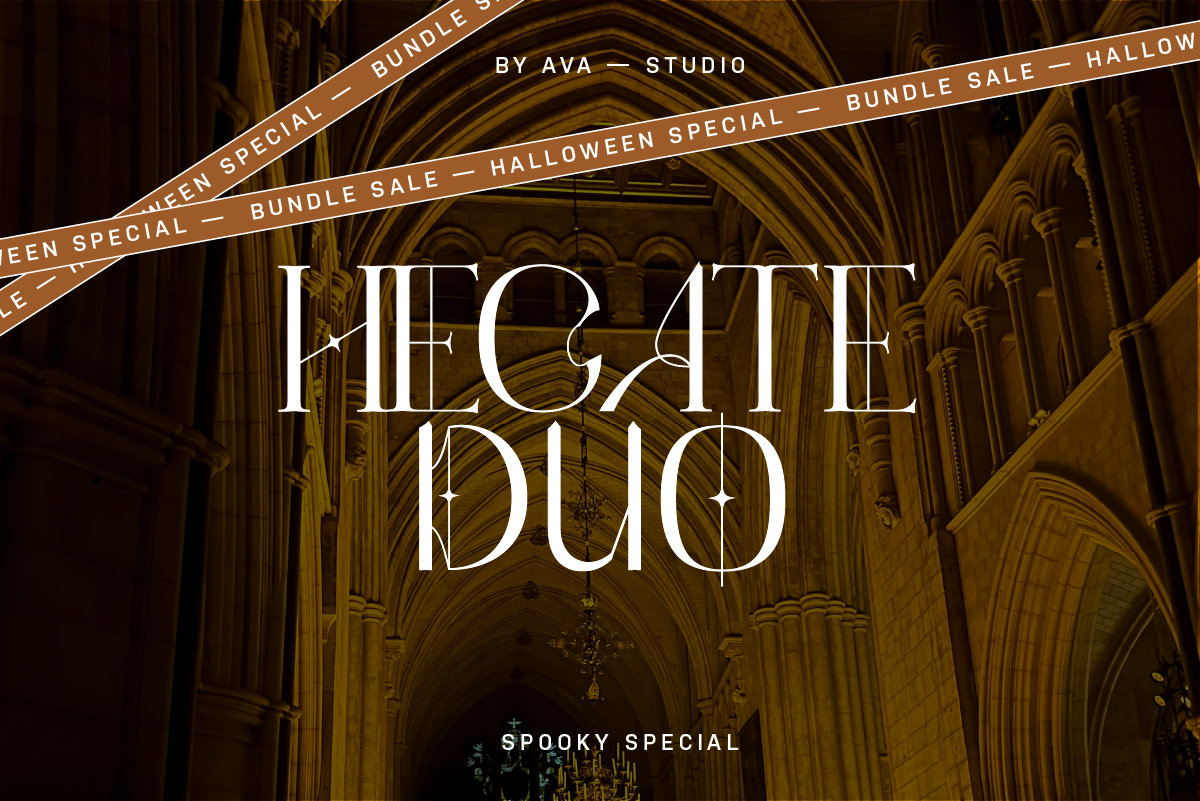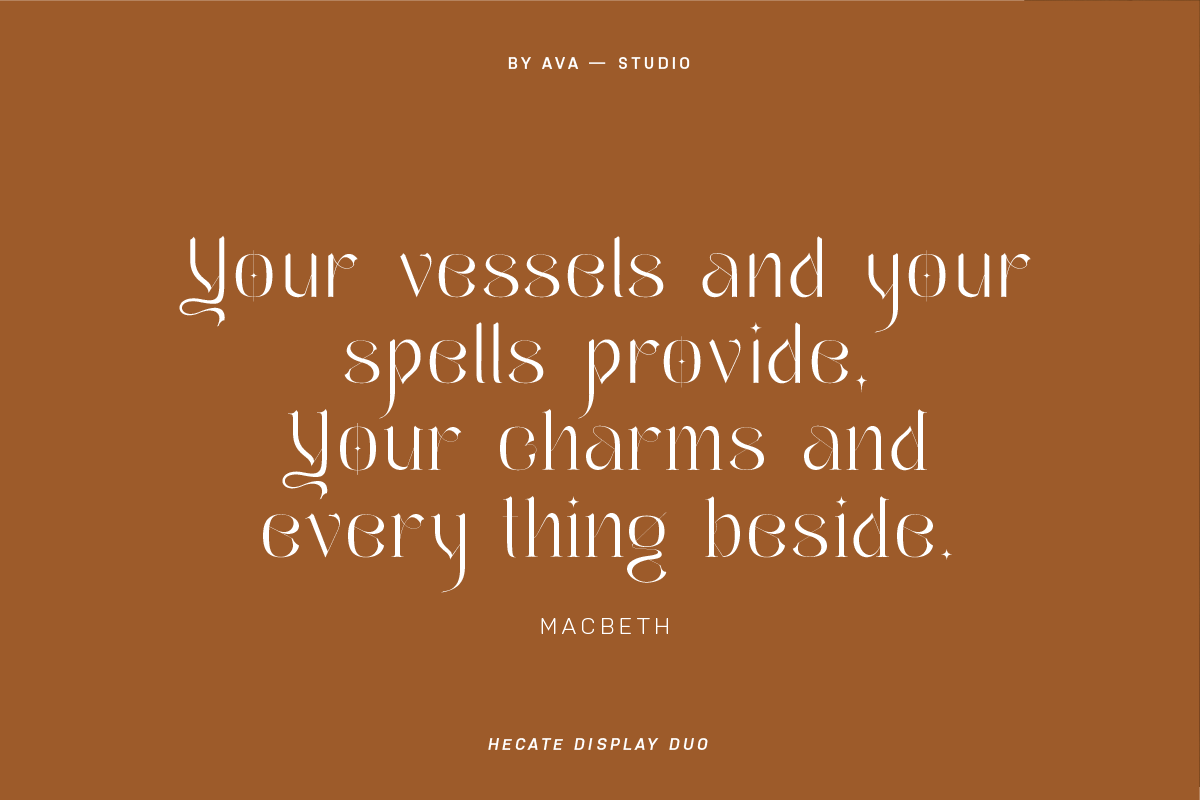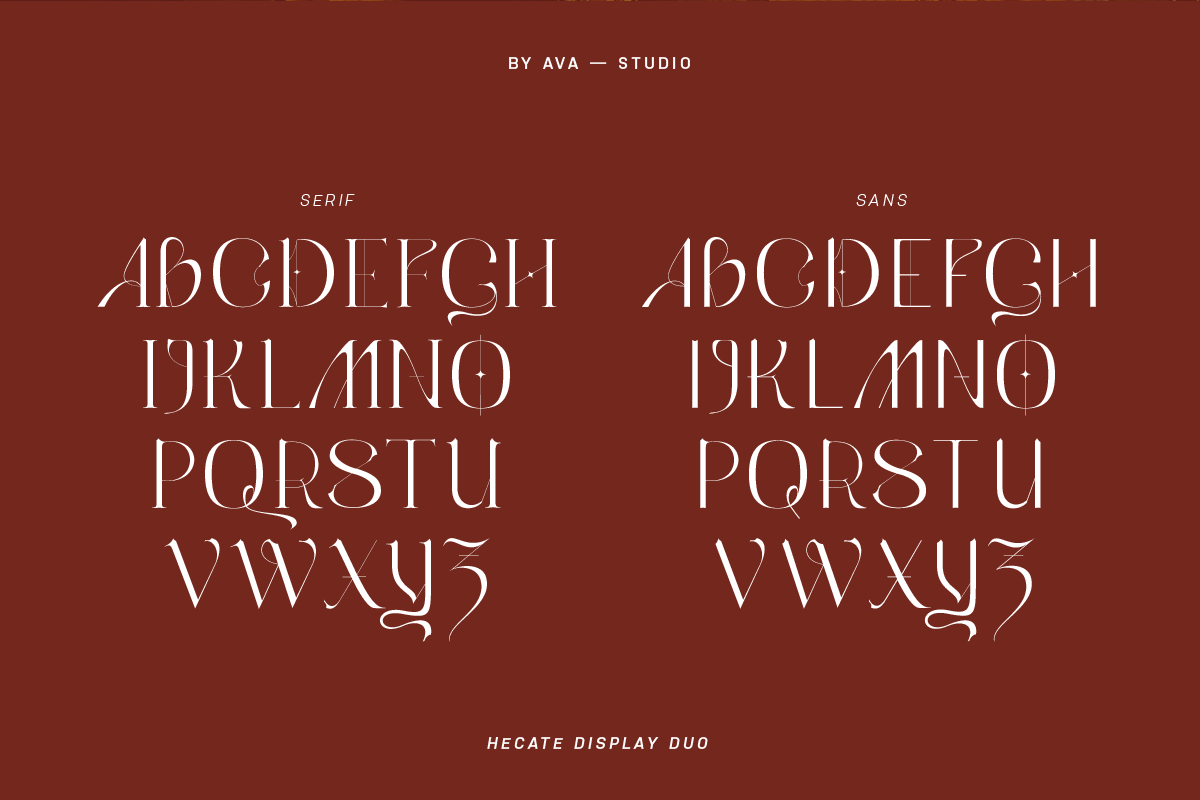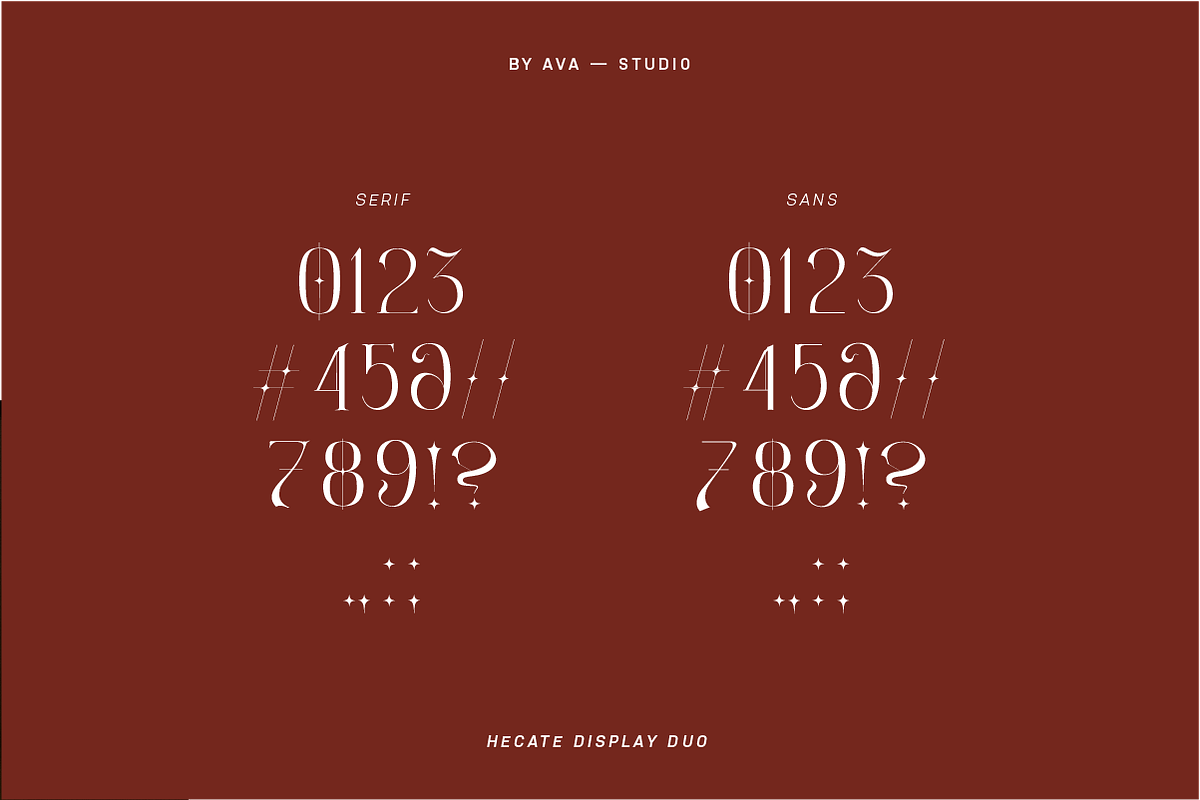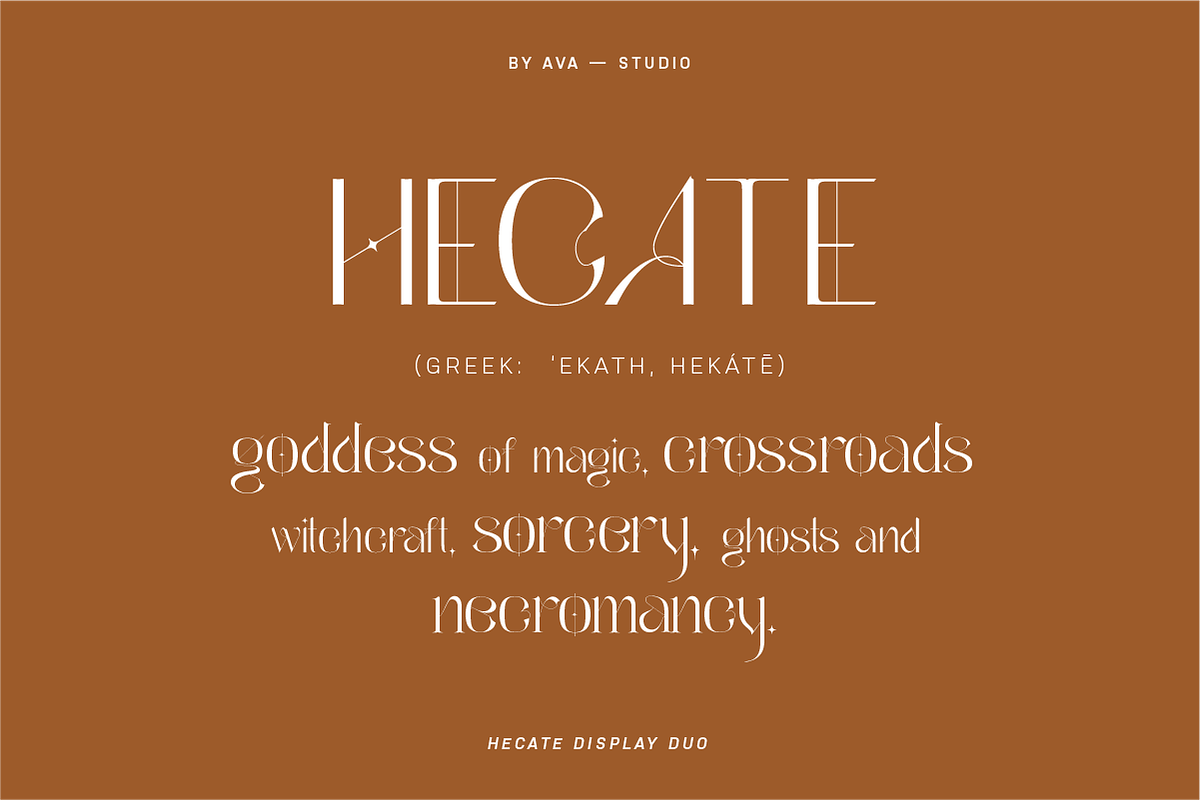
Hecate Font DUO — Halloween Edition
Introducing Hecate DUO, combining both Hecate Serif and Sans into a special bundle for spooky season. These fonts take inspiration from the enigmatic Greek goddess Hecate and the ancient malleus maleficarum, embodying the essence of a modern witch.
With its sophisticated yet edgy appearance, Hecate Sans is perfect for conveying a sense of magic, independence, and enchantment in modern design projects. Let the spirit of the witching hour infuse your creations with Hecate Serif.
Designed by hand with the care, thought and detail only a human brain can provide.